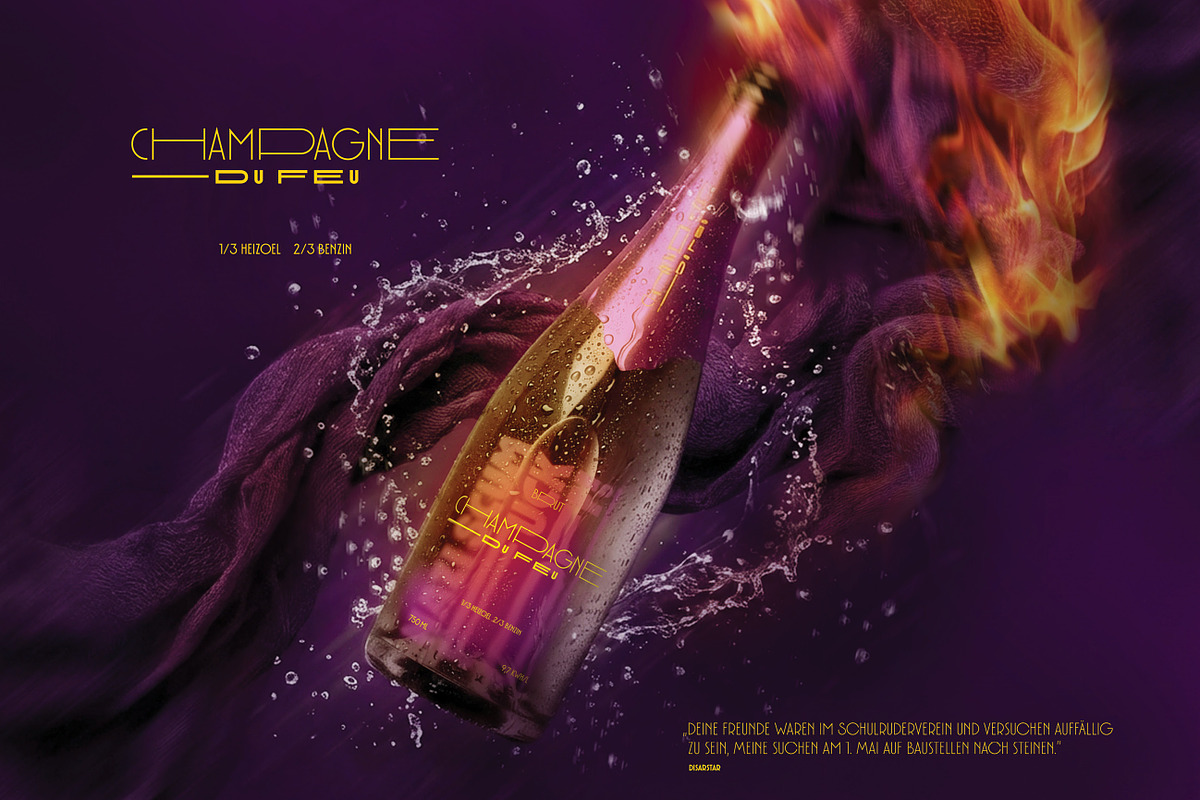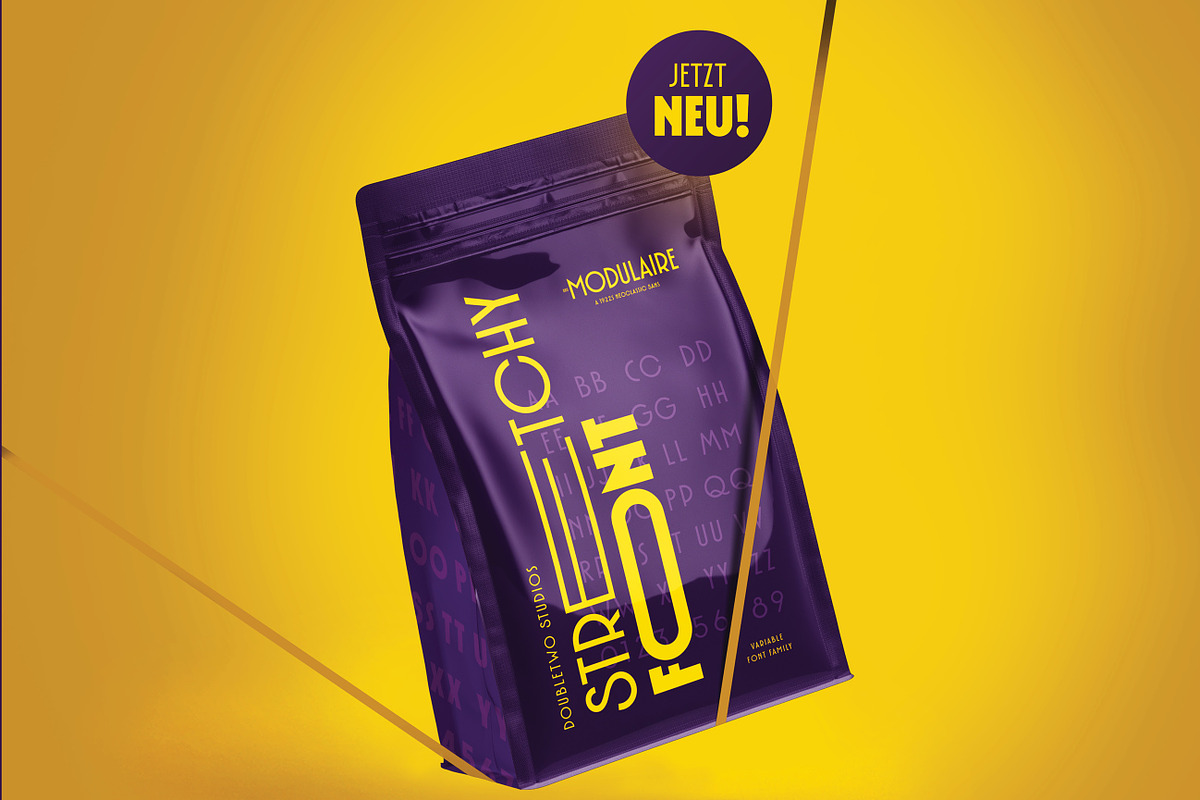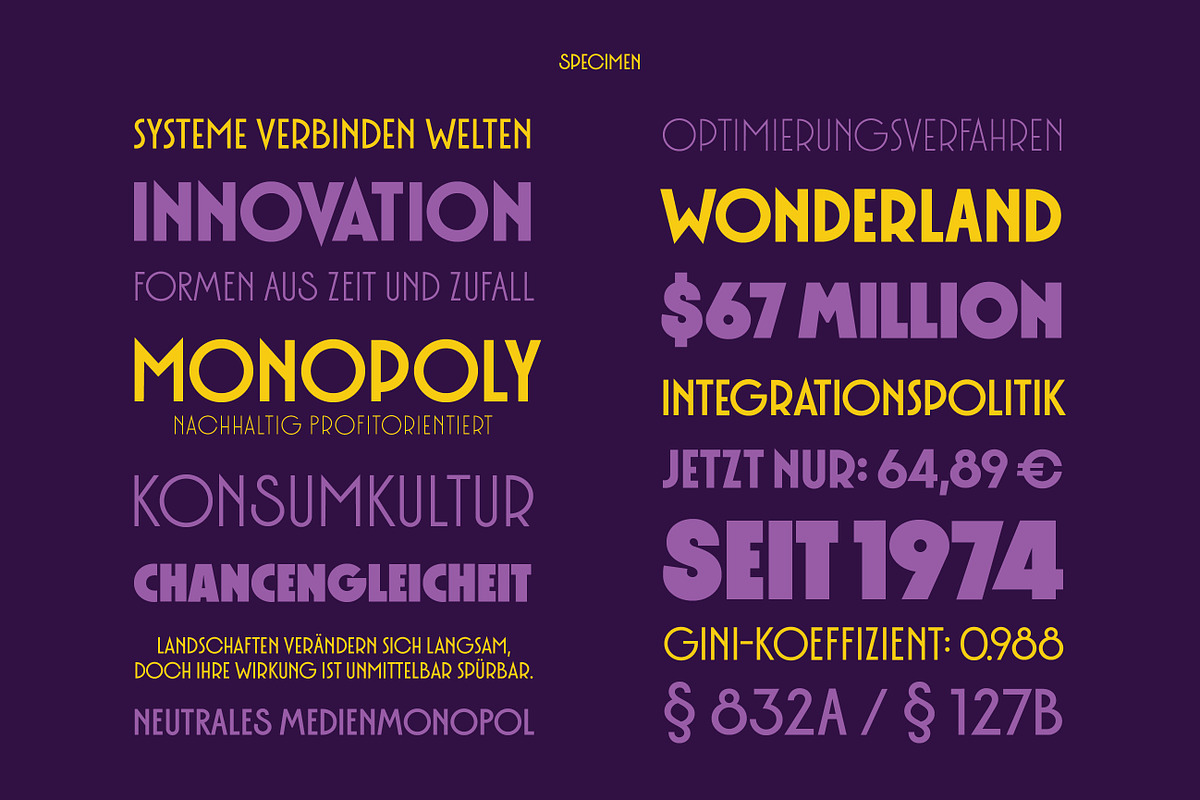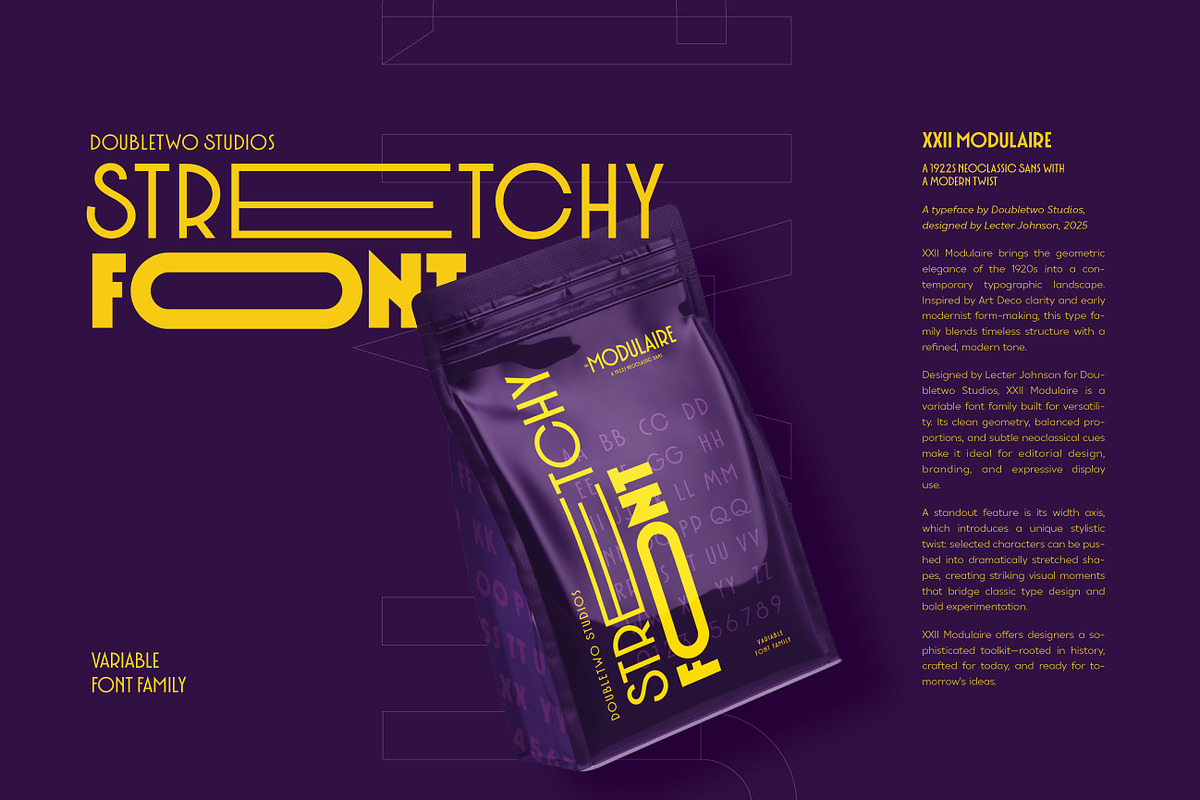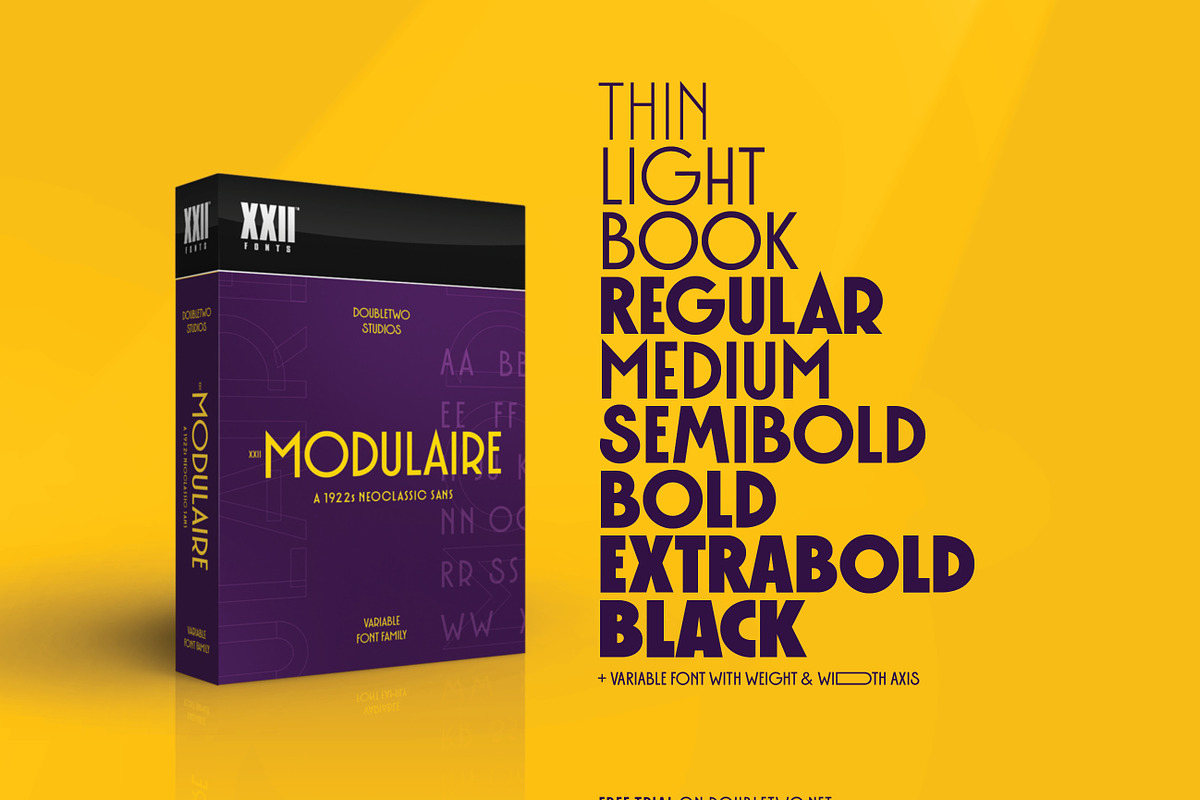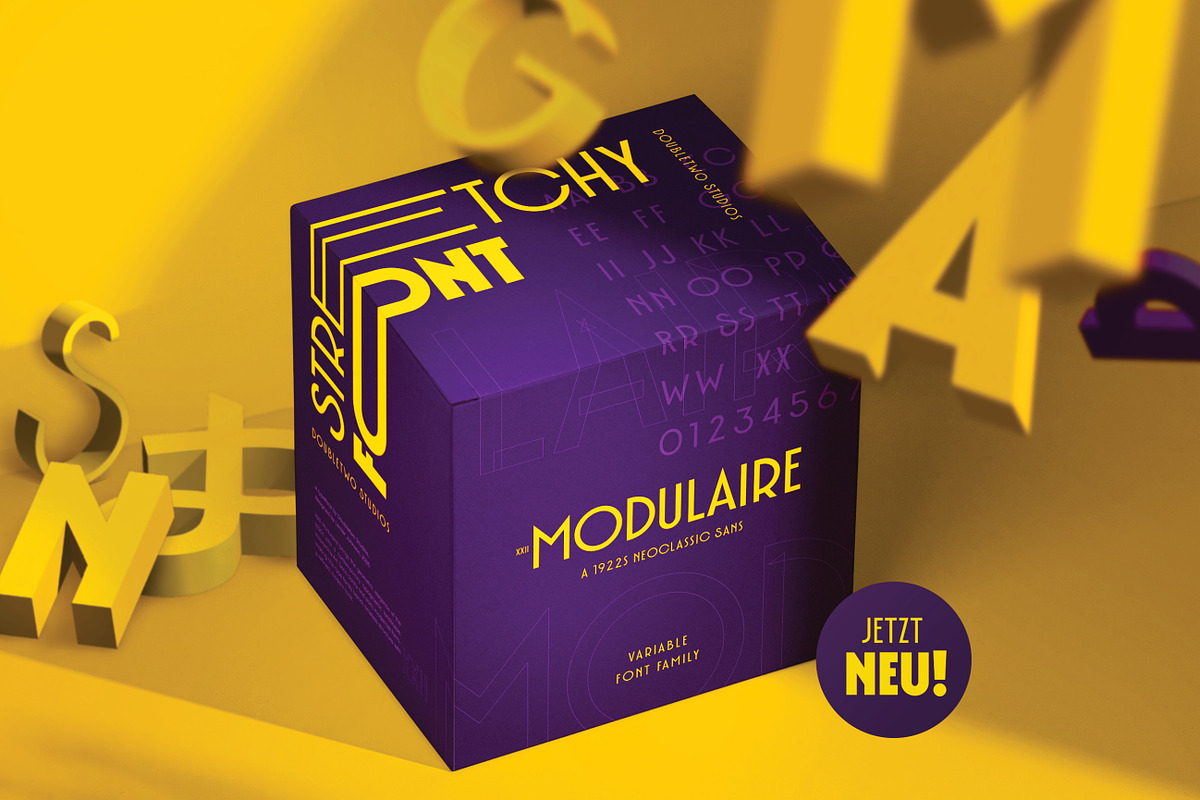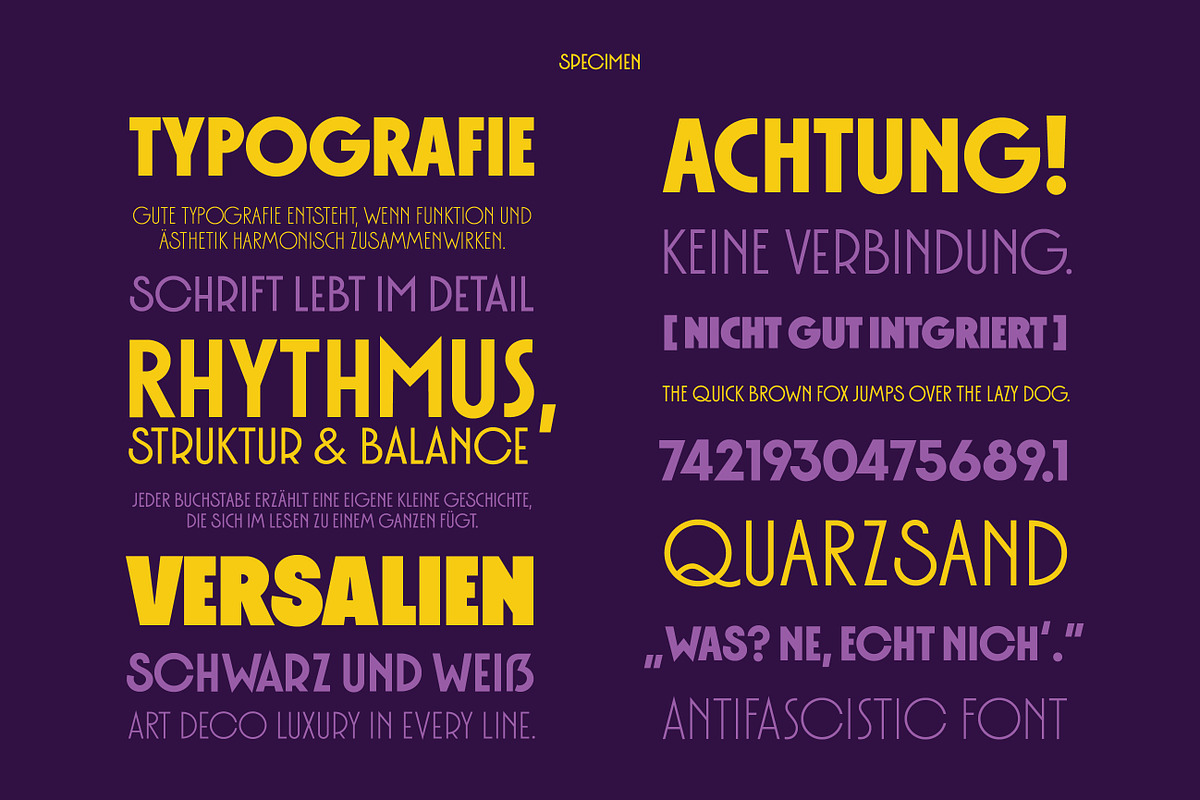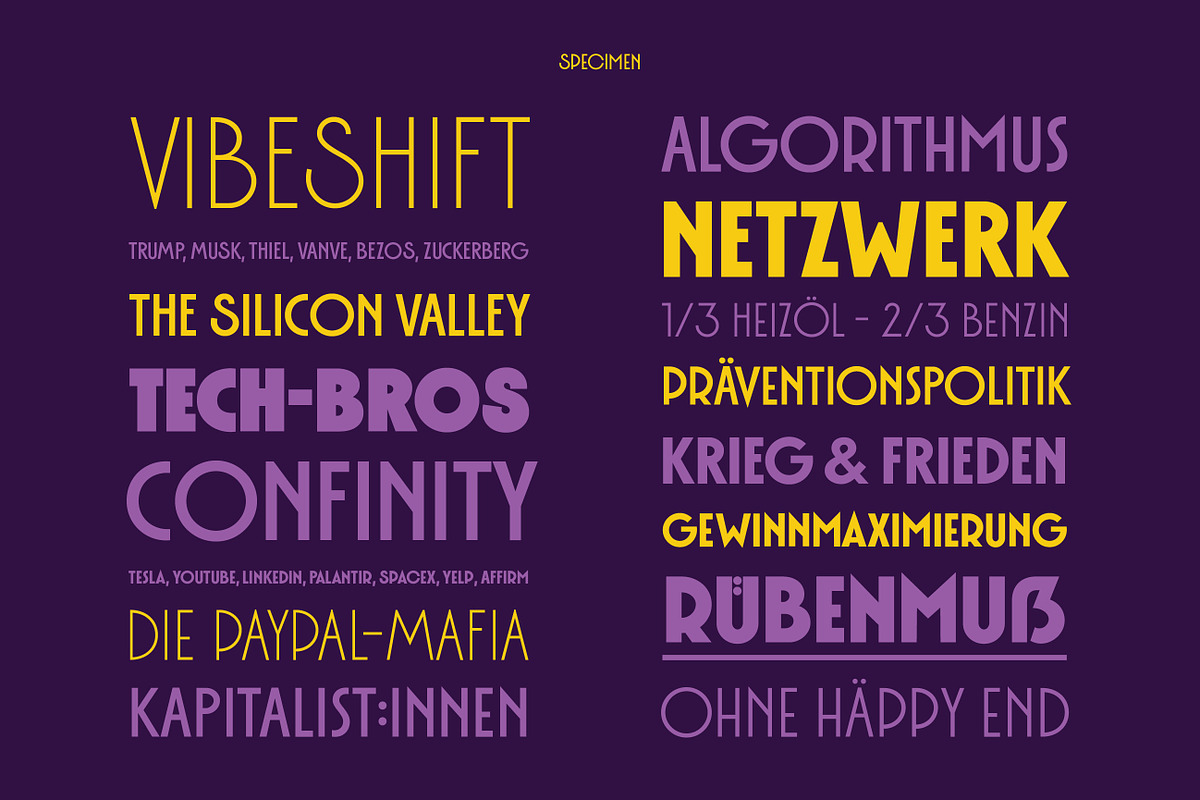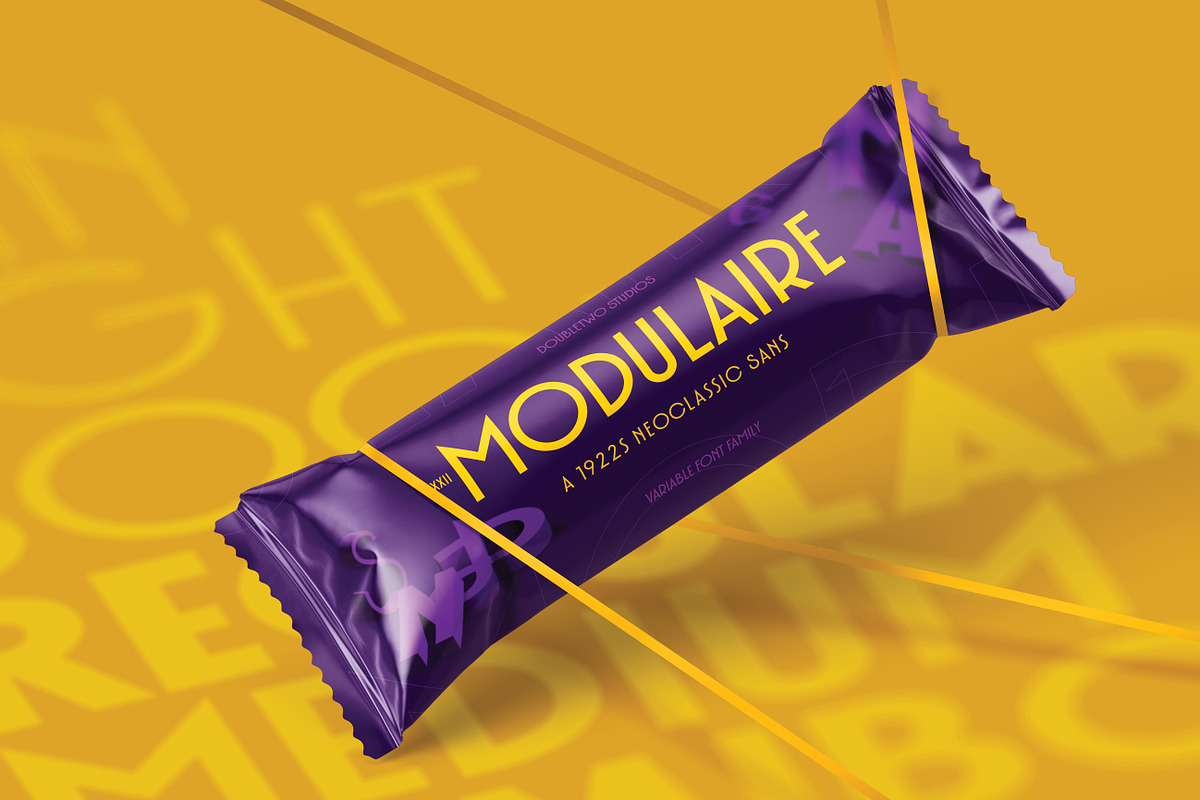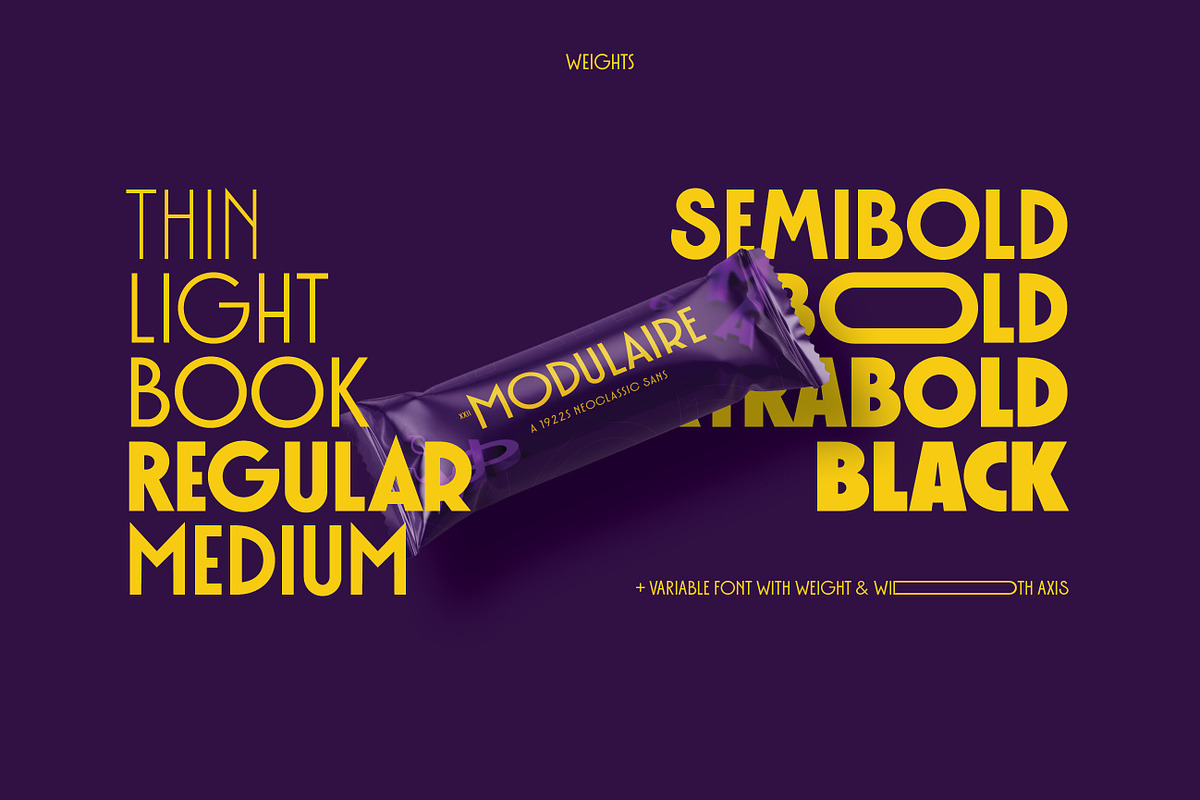
XXII MODULAIRE
XXII MODULAIRE - A 1922s Neoclassic Sans With A Modern Twist A typeface by Doubletwo Studios, designed by Lecter Johnson, 2026
XXII Modulaire brings the geometric elegance of the 1920s into a contemporary typographic landscape. Inspired by Art Deco clarity and early modernist form-making, this type family blends timeless structure with a refined, modern tone.
Designed by Lecter Johnson for Doubletwo Studios, XXII Modulaire is a variable font family built for versatility. Its clean geometry, balanced proportions, and subtle neoclassical cues make it ideal for editorial design, branding, and expressive display use.
A standout feature is its width axis, which introduces a unique stylistic twist: selected characters can be pushed into dramatically stretched shapes, creating striking visual moments that bridge classic type design and bold experimentation. XXII Modulaire offers designers a sophisticated toolkit—rooted in history, crafted for today, and ready for tomorrow’s ideas.